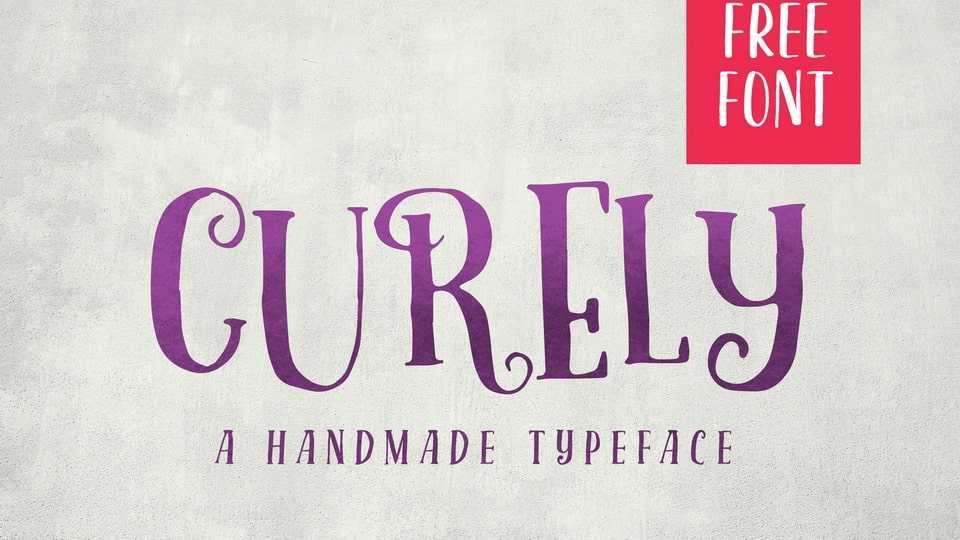
Download Curely font, a handmade decorative typeface inspired by girly stuffs and cuteness overload in every single letters on it, fit for your cute and sweet design project and stuffs.